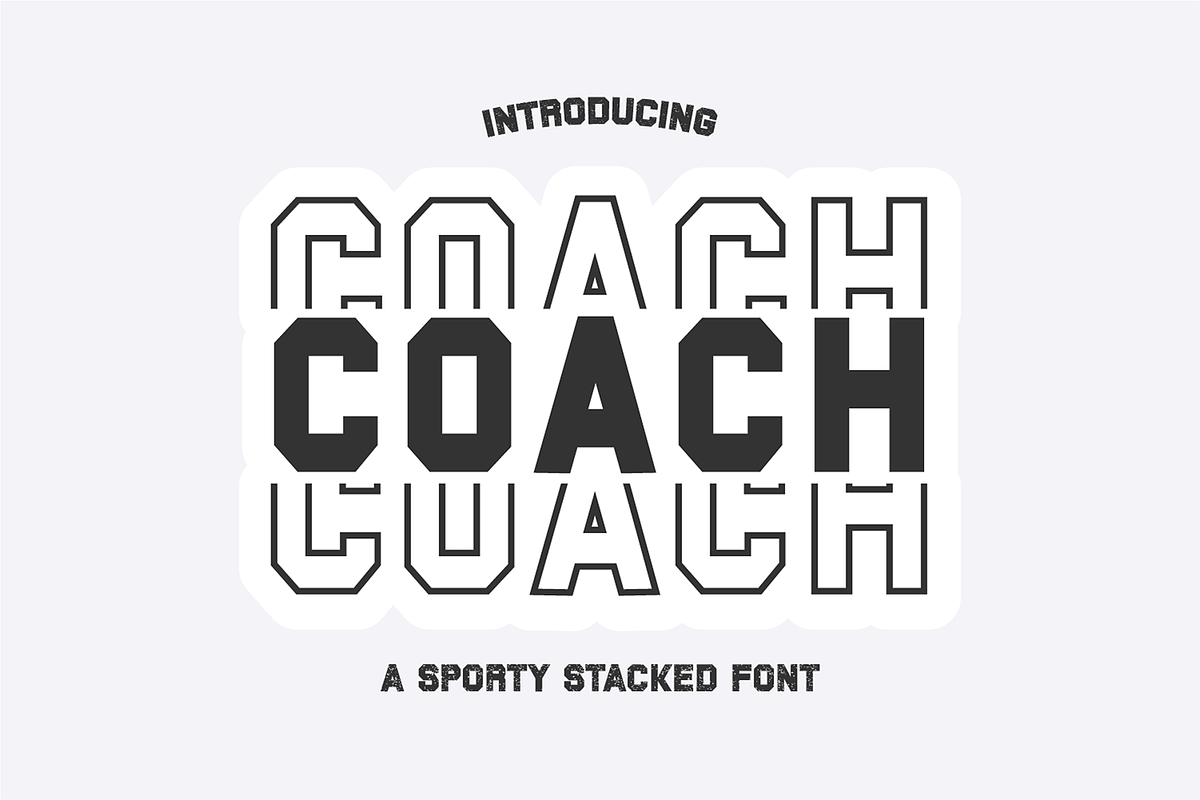
COACH STACKED Sporty Jersey Font Free Download
The COACH STACKED Sporty Jersey Font Free Download is a bold and dynamic typeface designed to bring a sporty and energetic vibe to your designs. With its stacked, varsity-inspired letterforms, this font is perfect for creating athletic logos, team jerseys, sports posters, and promotional materials. Whether you're designing for a sports event, a gym brand, or a school team, COACH STACKED adds a powerful and athletic look to your work.
COACH STACKED Sporty Jersey Font Free Download is ideal for designers looking to create bold, high-impact designs with a sporty feel. Perfect for sports branding, team uniforms, or event promotions, this font will give your designs a strong, competitive edge. Download it today and add an athletic touch to your creative projects!